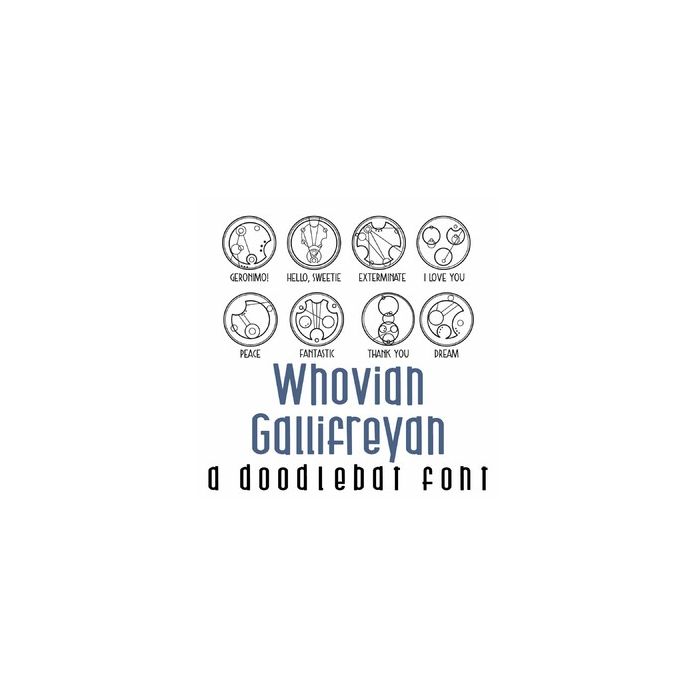
This fun doodlebat font features 26 Gallifreyan words from your favorite Time Lord. Perfect for cards, crafts, gifts, decor, scrapbook pages, planner stickers and more!